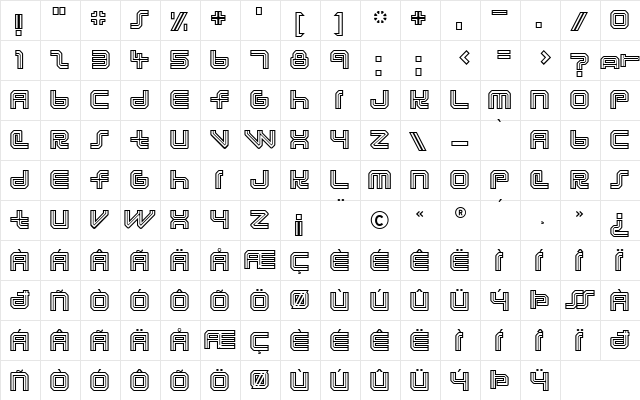
Lunasol Aurora Regular
Design Context for Lunasol Aurora Typeface
Lunasol Aurora is a composed and adaptable typeface that performs quietly and consistently across a wide range of design contexts.